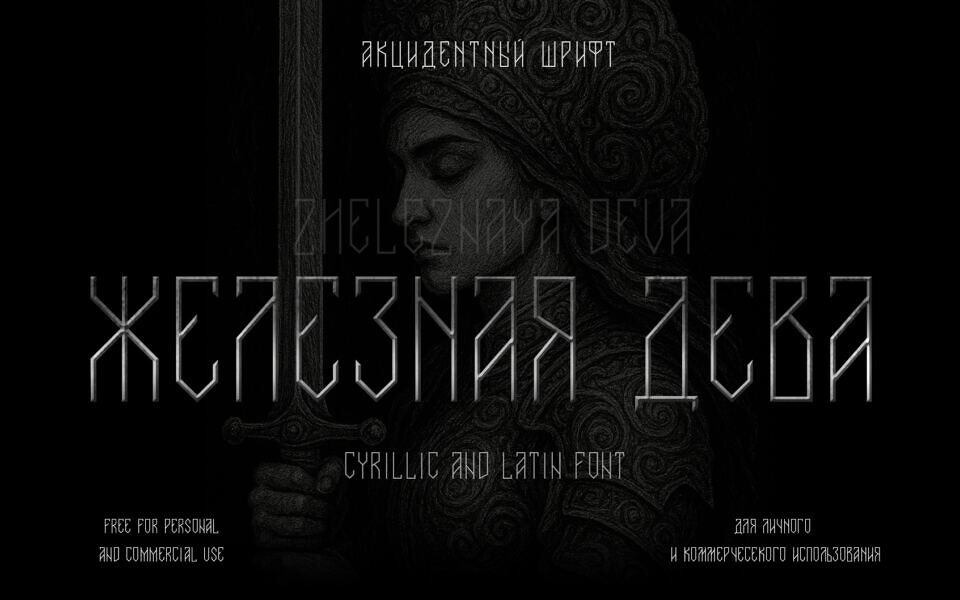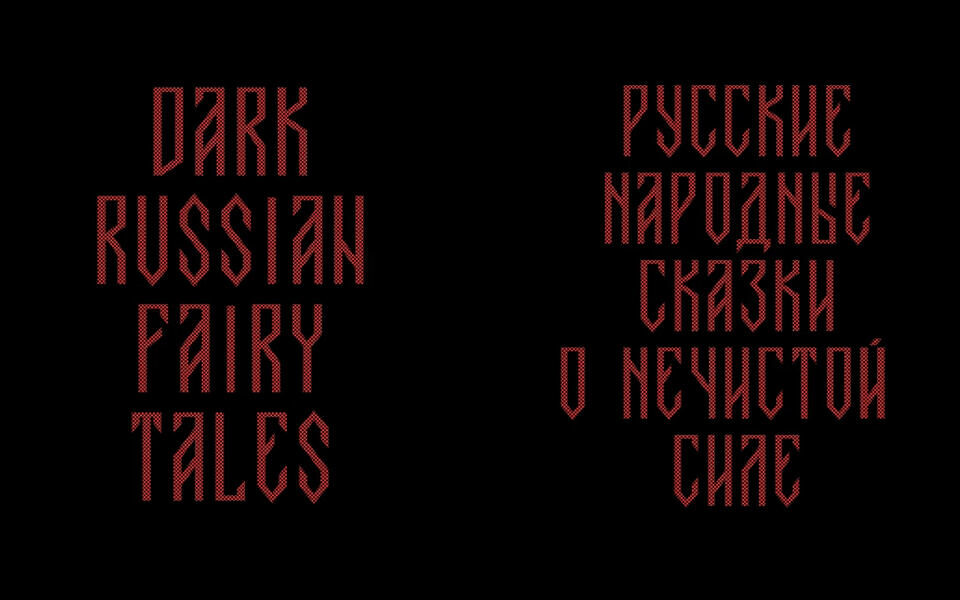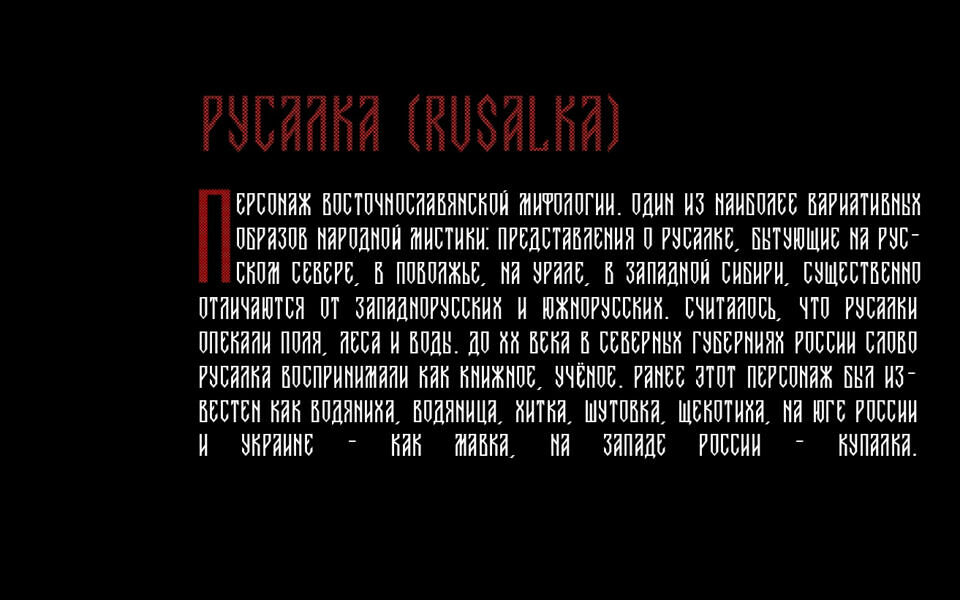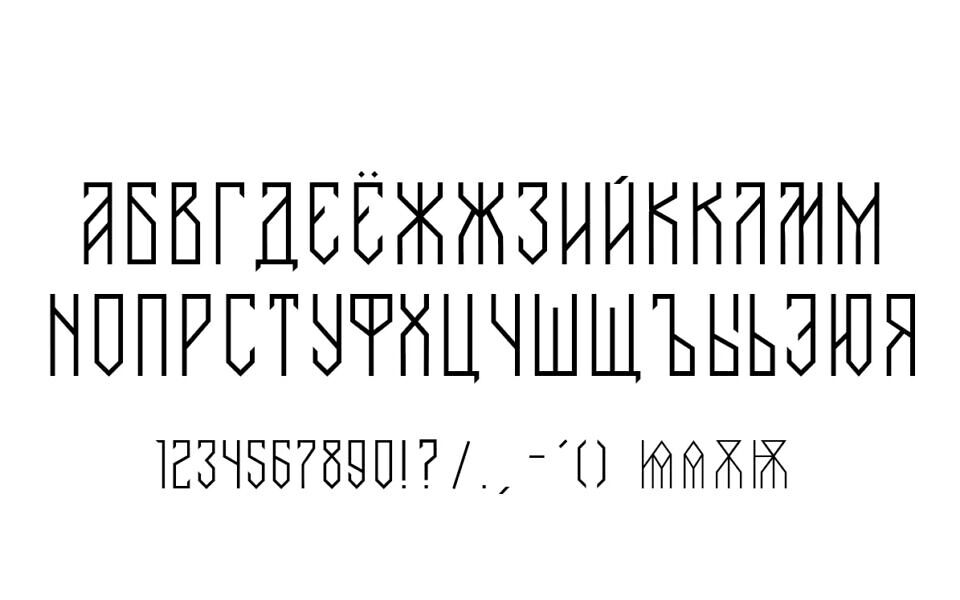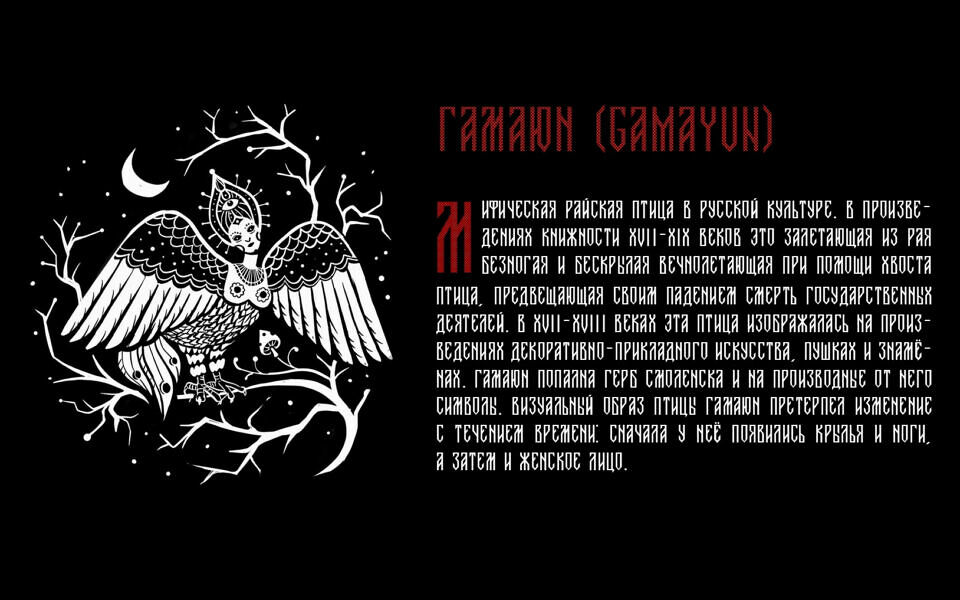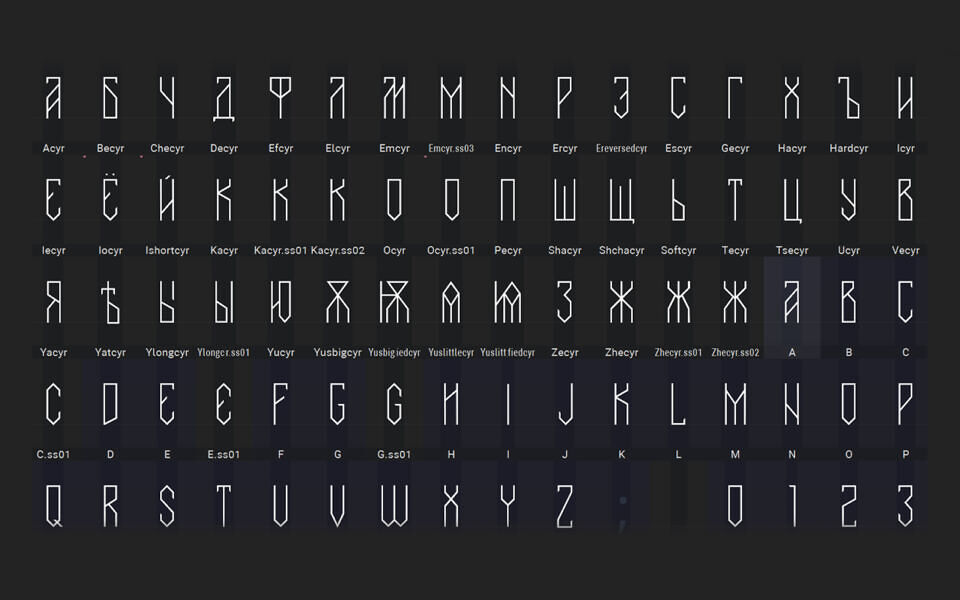
The font Deva Zheleznaya is an arresting accent sans-serif with a rugged, archaic foundation. Inspired by old Slavic ligature scripts, runic alphabets and Soviet constructivist aesthetics, it combines a “cold, straight, unyielding” metallic feel with a dignified, independent character.
Its book weight features decorative details that lend fairy-tale mystique, making it perfect for historic stylisations, bold branding, or expressive editorial use.